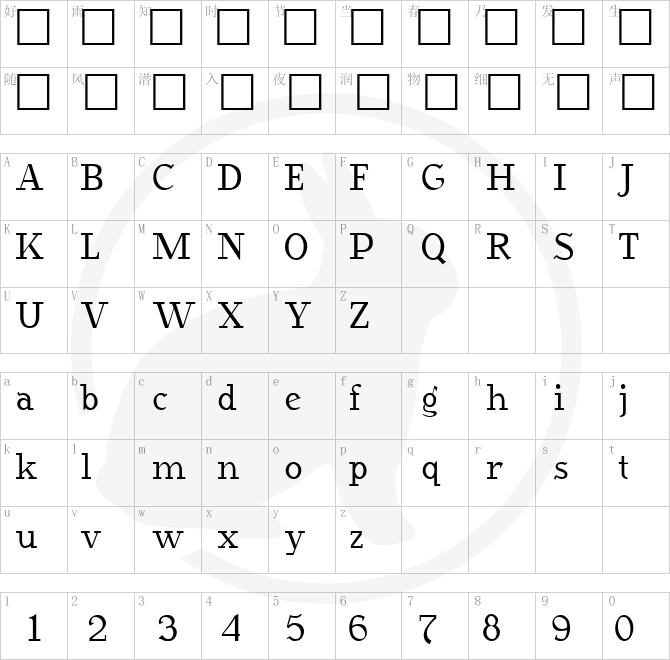
- Font Name:Safran
Safran.ttf is a very beautiful artistic font, Safran.ttf is widely used in the design and printing of various books and pictures,Safran.ttf has a strong visual impact,Safran.ttf is a commonly used font in newspapers, magazines and books, and is used in posters, e-commerce Poster design, store design, logo design, font design and other fields.Safran.